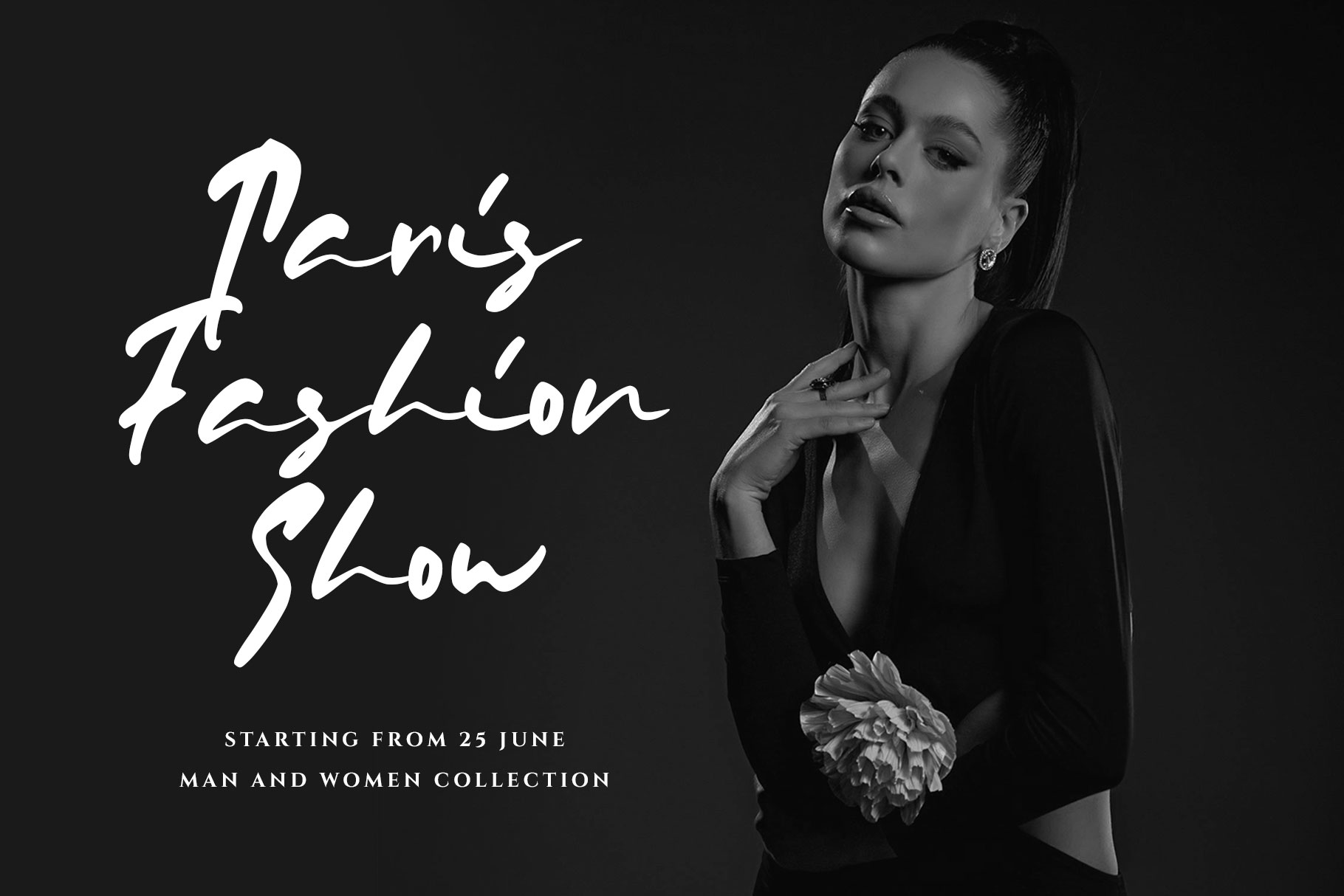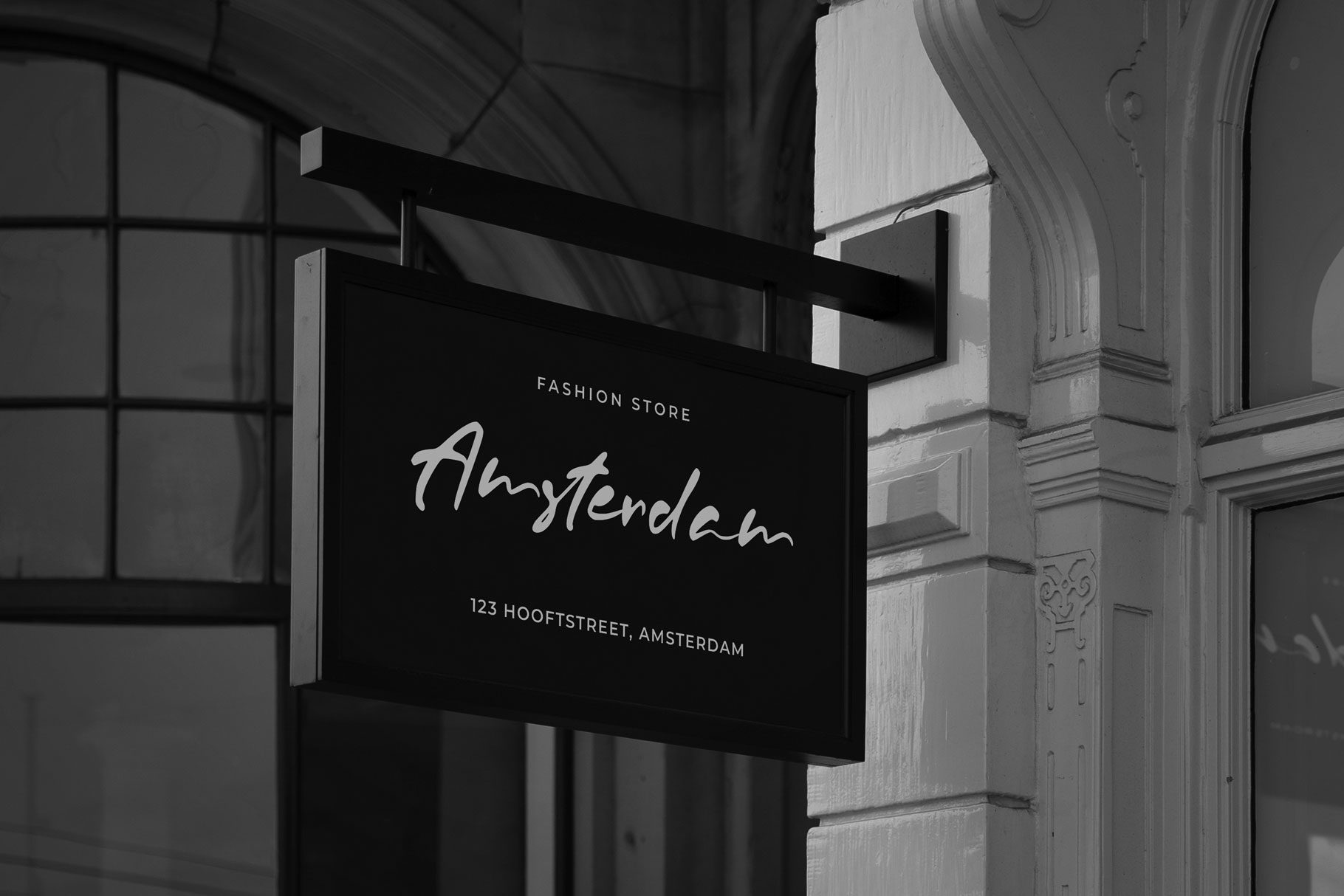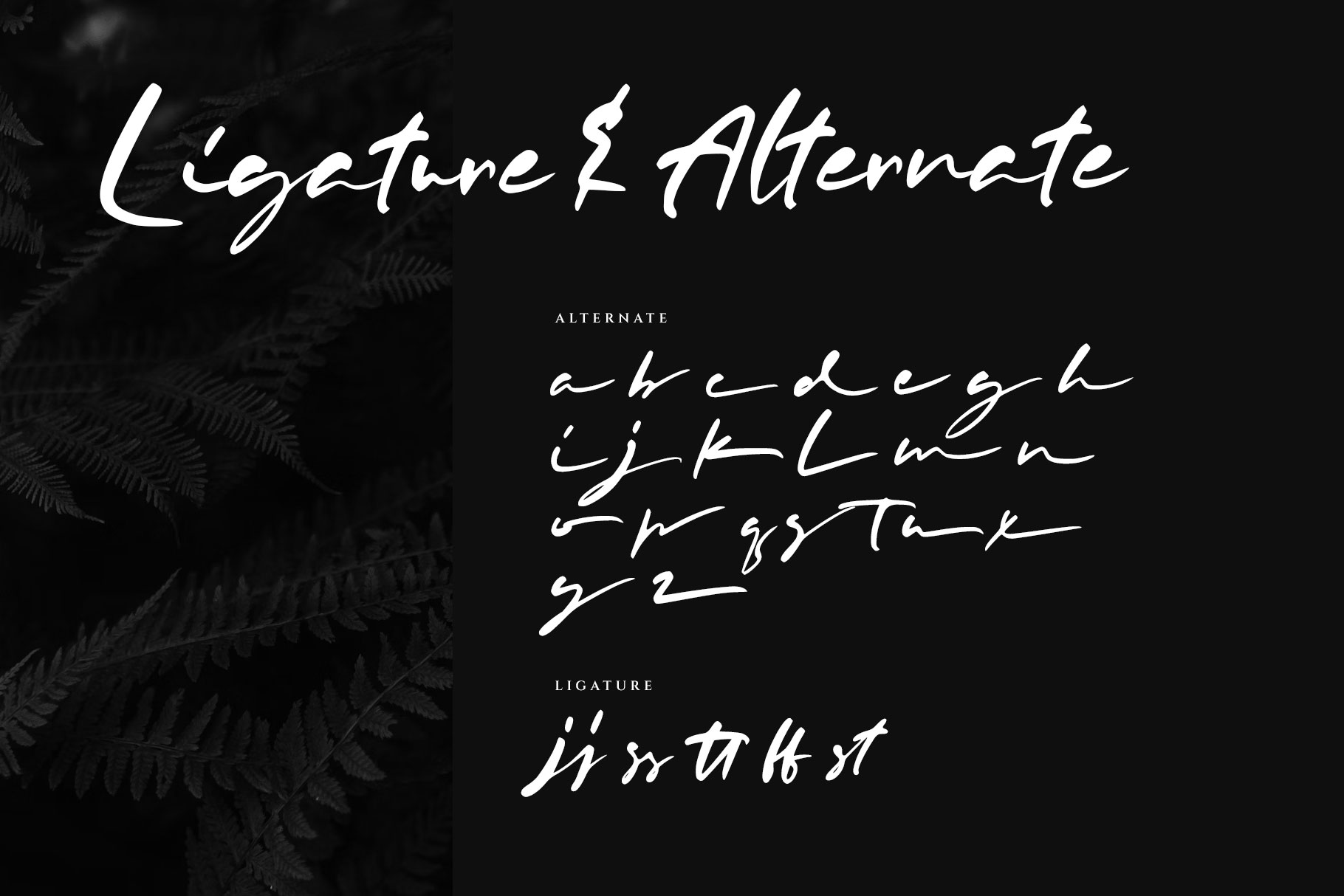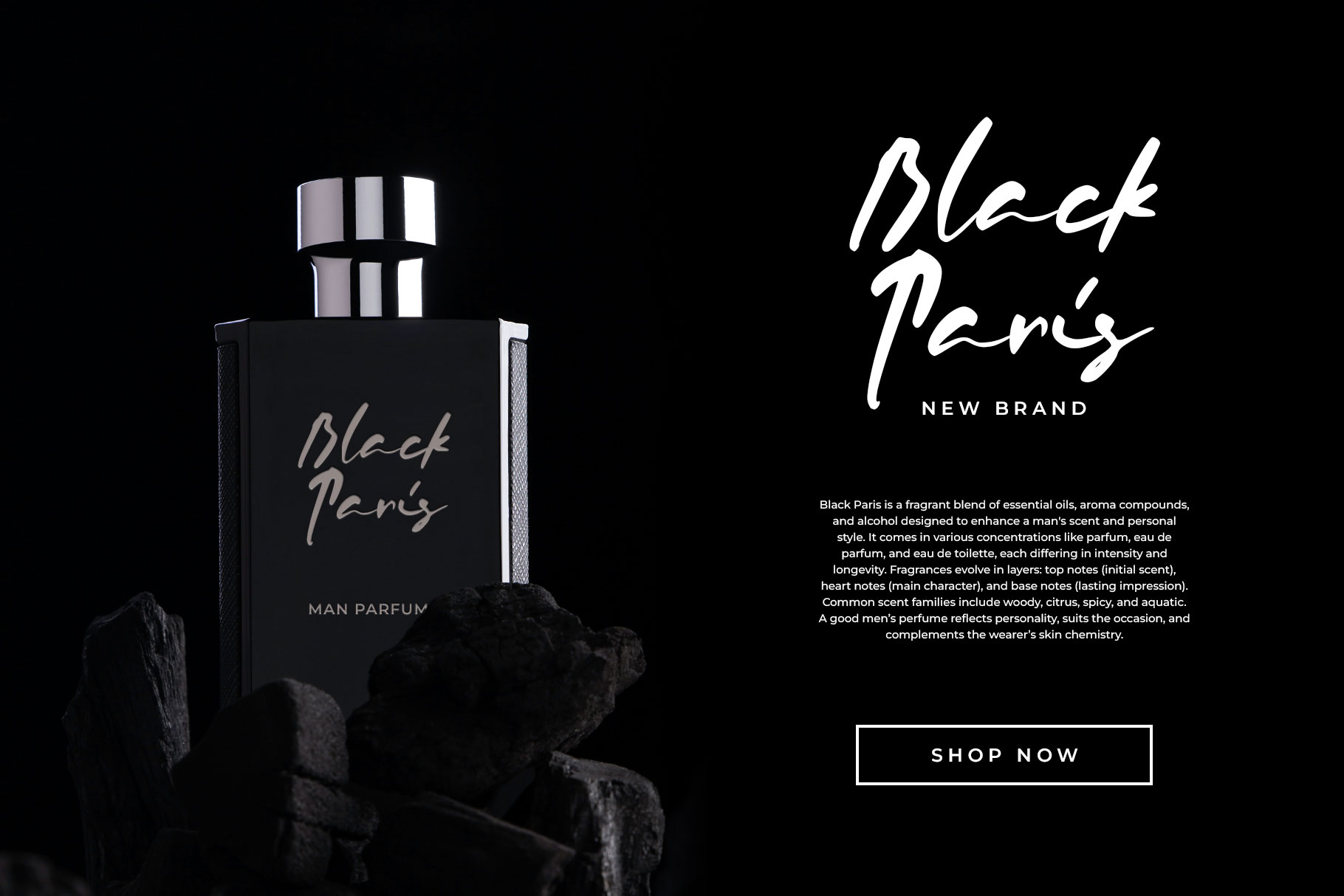
Rastelina Elegant Signature Font
Rastelina is a elegant signature font with bold and authentic hand lettering combines sophistication with personal flair. It features fluid, cursive strokes that mimic natural handwriting, enhanced by confident, bold lines that add presence and impact. Rastelina is a perfectly choice for any creative endeavor, creating, modern, lifestyle design such as logotype, title, cover, branding, invitations, wedding designs, display and magazine, social media posts, advertisements, printed quotes, product packaging, corporate brand, product designs, labels, photography, watermarks, special events and any other project with high-end touch.